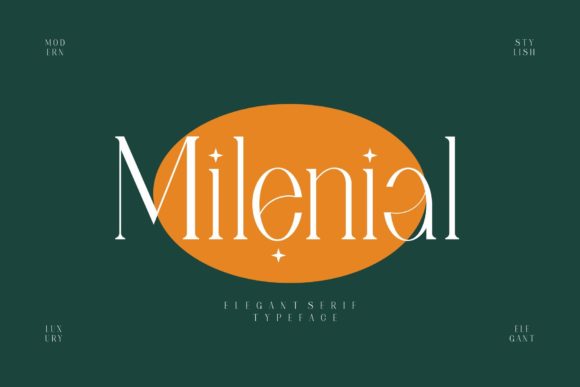
Welcome to the world of Milenial Font, where elegance meets sophistication. This tall, thin lettered and delicate serif font is meticulously crafted to bring a touch of beauty and freshness to your designs. Milenial Font is the perfect choice for those seeking a unique and captivating typographic experience.
With its tall and slender characters, Milenial Font exudes a sense of grace and refinement. The carefully crafted serifs add a touch of elegance, while the thin lines create a delicate and airy feel. This beautiful and elongated typeface is a true standout, sure to make your designs shine.
Whether you're a graphic designer, a creative entrepreneur, or simply someone who appreciates the art of typography, Milenial Font is the perfect addition to your font collection. Its versatility and charm make it ideal for a wide range of projects, from logos and branding to invitations and social media graphics.
Embrace the beauty of Milenial Font and elevate your designs to new heights. Let your creativity flourish as you explore the endless possibilities of this stunning serif font.
Milenial Font: The perfect blend of beauty and functionality.